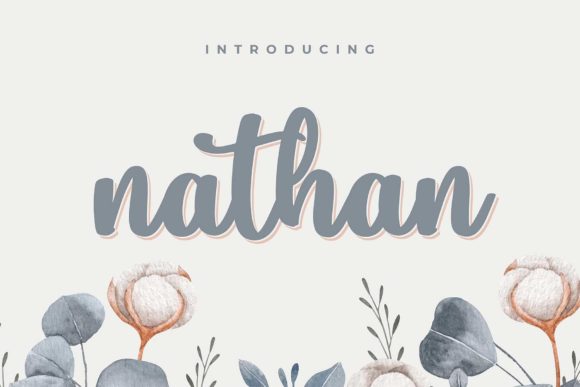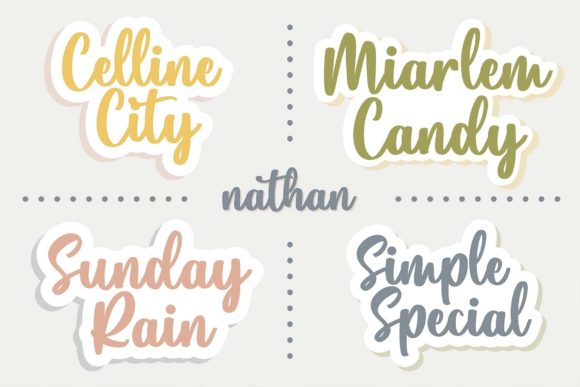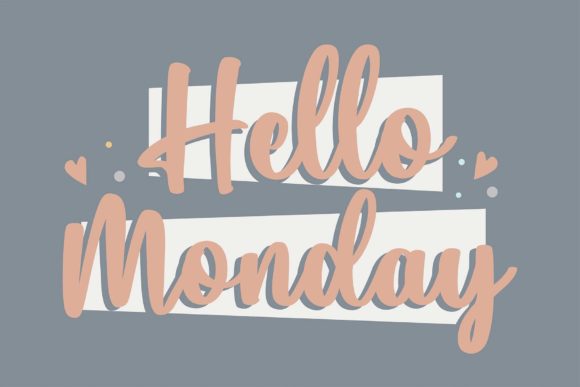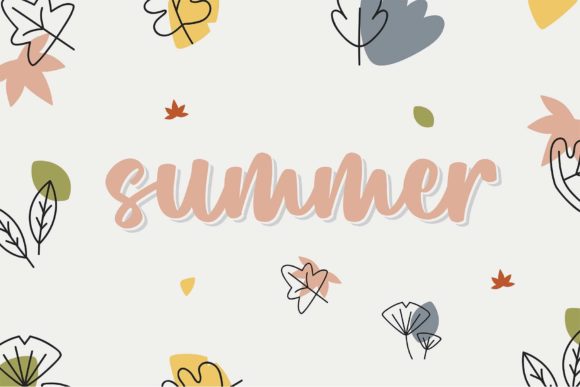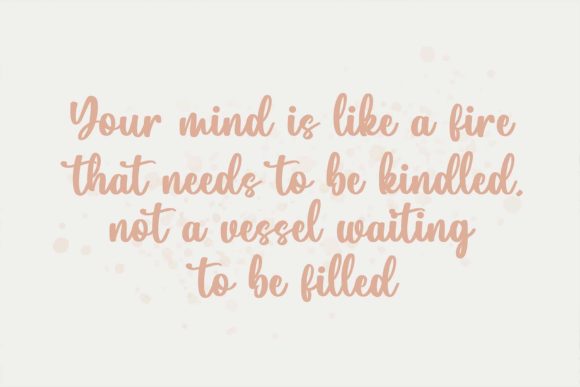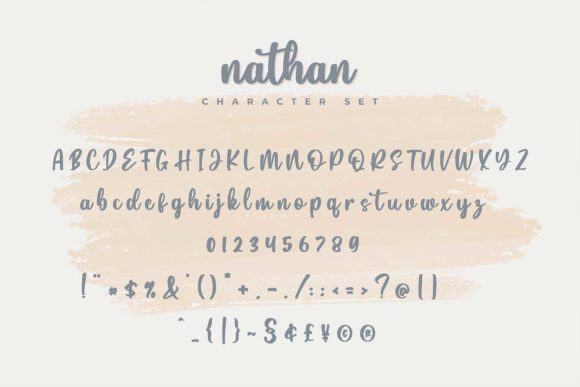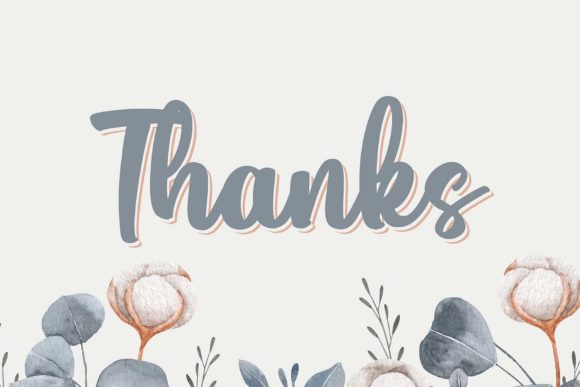
Nathan Font
About Nathan Font
Nathan is a trendy and chic handwritten font, featuring the perfect amount of trendiness. This font reads as strong, confident, and dynamic and can add tons of nostalgic character to your designs.